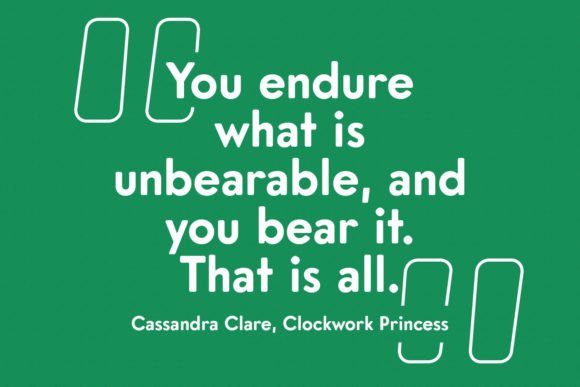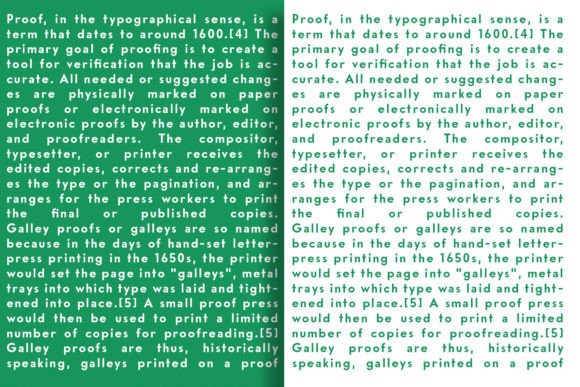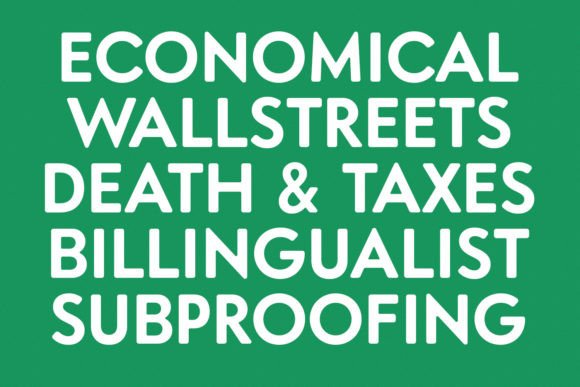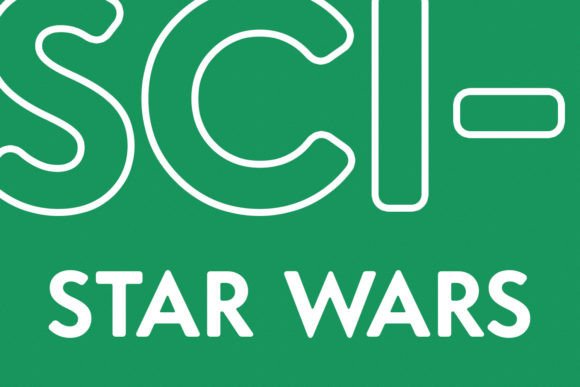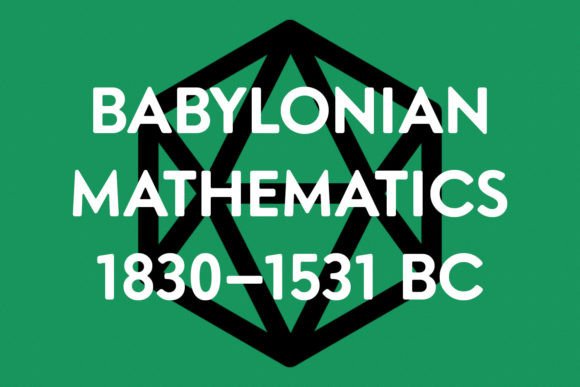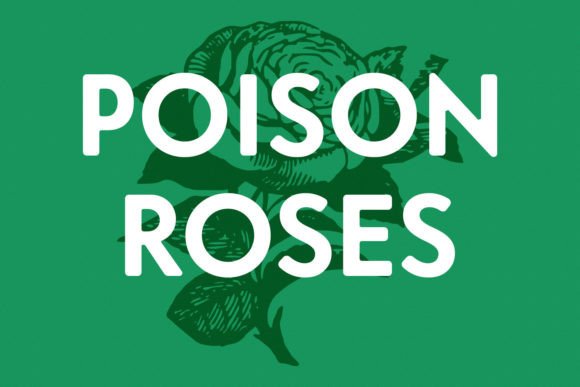
Introducing Barjon Font: The Epitome of Modernity and Simplicity
In the world of typography, a new font has emerged that embodies the essence of modern design: Barjon. This sleek and sophisticated sans-serif font is the perfect addition to any design project that requires a touch of elegance and understated style. In this article, we’ll dive into the world of Barjon, exploring its features, benefits, and uses, and why it’s quickly becoming a favorite among designers and crafters.
The Design Philosophy Behind Barjon
Barjon is the result of a meticulous design process that aimed to create a font that is both modern and minimalist. Each letter is crafted with clean lines and minimal detailing, giving it a sleek and sophisticated look that’s perfect for designs that require a touch of elegance. The font’s simplicity makes it highly versatile, allowing it to be used in a wide range of applications, from digital interfaces to print materials.
Key Features of Barjon Font
- Clean Lines and Minimal Detailing: Barjon’s design is characterized by its clean lines and minimal detailing, making it perfect for designs that require a touch of elegance and sophistication.
- Sleek and Sophisticated Look: The font’s sleek and sophisticated look makes it ideal for designs that require a modern and understated style.
- Highly Versatile: Barjon’s simplicity makes it highly versatile, allowing it to be used in a wide range of applications, from digital interfaces to print materials.
- Easy to Read: The font’s clear and legible design makes it easy to read, even at small sizes.
Benefits of Using Barjon Font
So, why should you choose Barjon for your design projects? Here are just a few benefits of using this modern and minimalist sans-serif font:
- Elegance and Sophistication: Barjon adds a touch of elegance and sophistication to any design project, making it perfect for luxury brands, high-end products, and creative agencies.
- Improved Readability: The font’s clear and legible design improves readability, making it easier for your audience to engage with your content.
- Flexibility: Barjon’s versatility makes it suitable for a wide range of applications, from digital interfaces to print materials.
- Unique and Modern Look: The font’s unique and modern design helps your brand stand out from the crowd, making it perfect for brands that want to make a statement.
Uses of Barjon Font
Barjon is a highly versatile font that can be used in a wide range of applications, including:
- Digital Interfaces: Use Barjon to create modern and sleek digital interfaces, including websites, mobile apps, and software.
- Print Materials: The font is perfect for print materials, including brochures, flyers, posters, and business cards.
- Branding and Identity: Use Barjon to create a unique and modern brand identity, including logos, letterheads, and packaging.
- Advertising and Marketing: The font is ideal for advertising and marketing materials, including billboards, magazines, and social media ads.
In conclusion, Barjon is a modern and minimalist sans-serif font that embodies the essence of modern design. Its clean lines, minimal detailing, and sleek and sophisticated look make it perfect for designs that require a touch of elegance and understated style. With its high versatility, improved readability, and unique and modern look, Barjon is quickly becoming a favorite among designers and crafters. Whether you’re working on a digital interface, print material, or branding project, Barjon is the perfect choice.